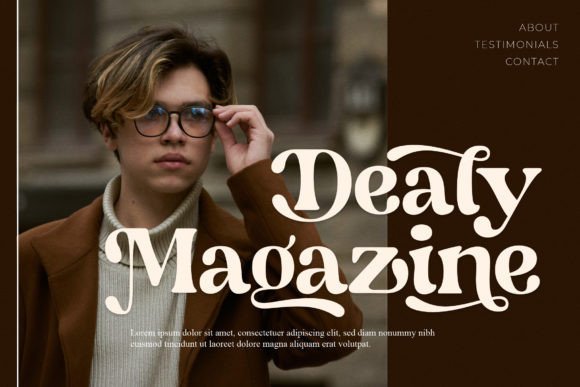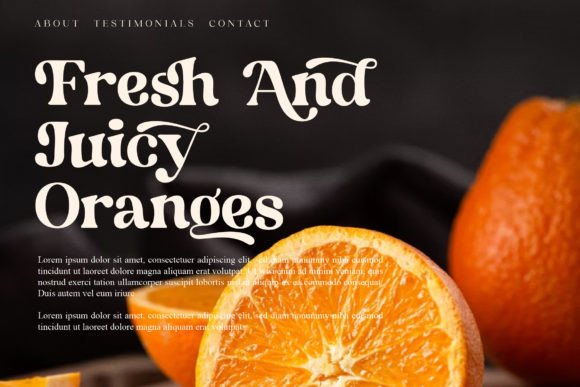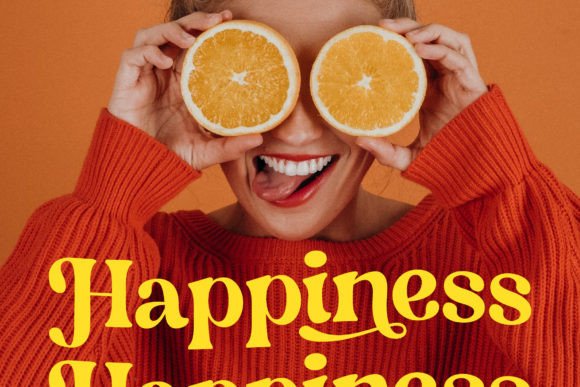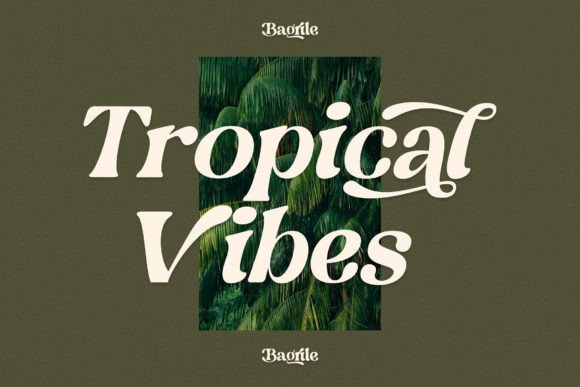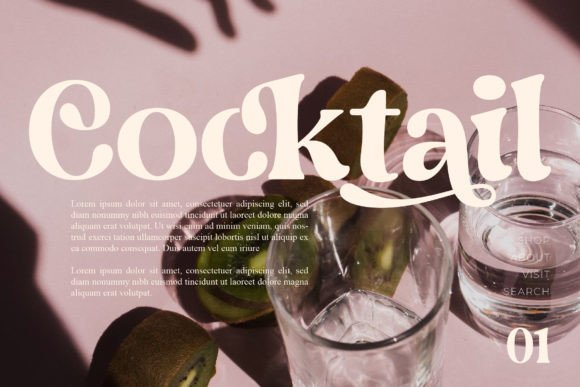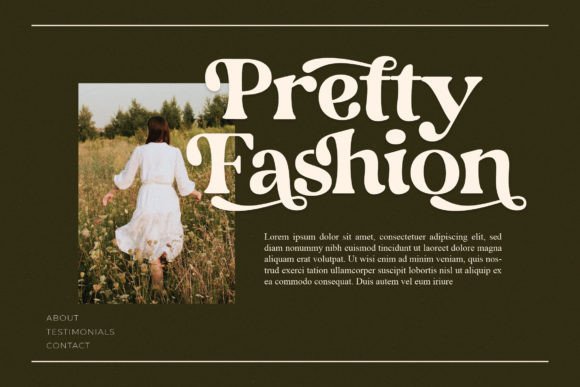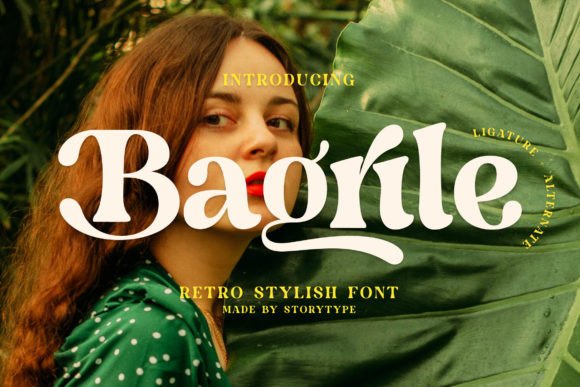
Introducing Bagrile Font: The Epitome of Elegance and Sophistication
In the realm of typography, a font can make or break the visual identity of a brand, product, or creative project. For those seeking a typeface that exudes elegance, luxury, and a touch of classic sophistication, look no further than Bagrile Font. This modern and classic serif font has been meticulously designed to cater to a wide range of creative endeavors, from luxury logos and book or movie titles to fashion branding, magazines, and beyond.
The Unique Style of Bagrile Font
Bagrile Font boasts a unique style that seamlessly blends modern flair with traditional serif elements. Its design is characterized by clean lines, precise letterforms, and a harmonious balance between thick and thin strokes. This balance not only lends the font its distinctive look but also ensures excellent readability across various mediums and sizes. Whether you’re crafting a logo that needs to stand out in the luxury market or designing a magazine that requires a sophisticated yet approachable tone, Bagrile Font is up to the task.
One of the key advantages of Bagrile Font is its incredible versatility. Its classic serif structure makes it suitable for projects that require a touch of tradition and timelessness, while its modern twists ensure it remains fresh and contemporary. Here are just a few examples of how Bagrile Font can be utilized:
- Elegant & Luxury Logos: Create a lasting impression with a logo that embodies luxury and sophistication. Bagrile Font’s unique style ensures your brand stands out in the luxury market.
- Book or Movie Title Design: Add a touch of glamour to your book or movie titles. The font’s classic and modern blend makes it perfect for capturing the essence of your story.
- Fashion Brand: Elevate your fashion brand with a typeface that speaks to elegance and style. Use Bagrile Font for branding, packaging, or advertising to convey a sense of high-end fashion.
- Magazine: Whether you’re launching a lifestyle, fashion, or luxury lifestyle magazine, Bagrile Font can serve as the perfect choice for headlines, titles, and even body text.
- Clothes and Lettering: For designers and crafters working on clothing lines or handmade products, Bagrile Font can add a sophisticated touch to labels, tags, and marketing materials.
- Quotes and Typography Art: The aesthetic appeal of Bagrile Font makes it an excellent choice for typography art, especially for quotes and phrases that require a touch of elegance.
Why Choose Bagrile Font?
Choosing a font for your project can be a daunting task, given the vast options available. However, Bagrile Font stands out for several reasons:
- Unique Style: Offers a fresh take on classic serif fonts, making your project instantly recognizable.
- High Readability: Ensures your message is conveyed clearly, whether in print or digital formats.
- Versatility: Suitable for a wide range of projects, from luxury branding to personal crafting projects.
- Elegance and Sophistication: Brings a level of sophistication that can elevate any project to new heights.
Bagrile Font is more than just a typeface; it’s a tool for creative expression and a means to convey elegance, luxury, and sophistication. Its unique blend of modern and classic elements makes it an invaluable asset for designers and crafters looking to leave a lasting impression. Whether you’re working on a luxury brand, a creative project, or simply exploring your artistic side, Bagrile Font is poised to become your go-to choice for all things elegant and sophisticated.
Embark on your creative journey with Bagrile Font and discover the difference a truly exceptional typeface can make.